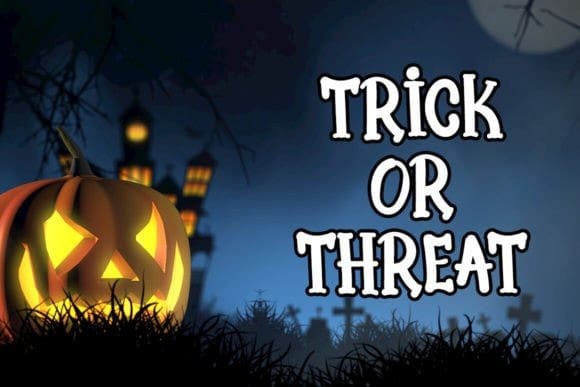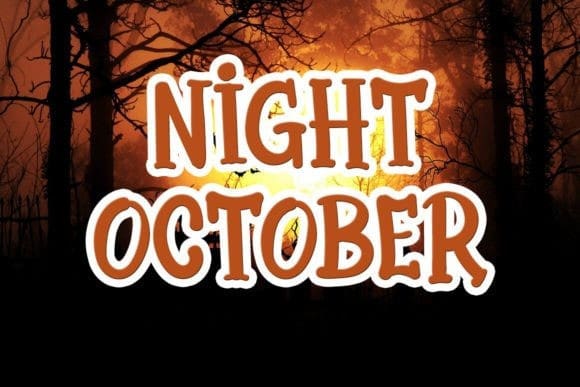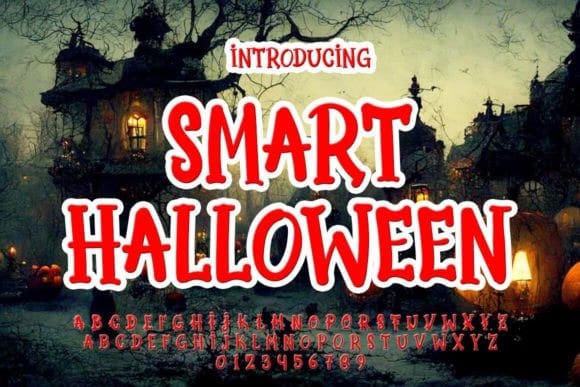
Smart Halloween Font
Smart Halloween Font will help you capture the attention of your audience and create a lasting impression. Its graceful curves and intricate details make it an ideal choice for designs that require a touch of luxury and refinement.